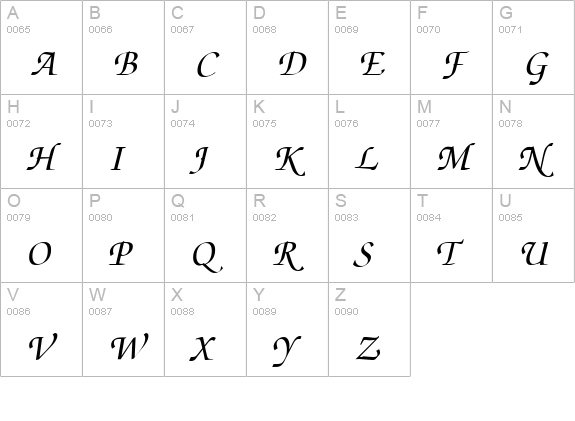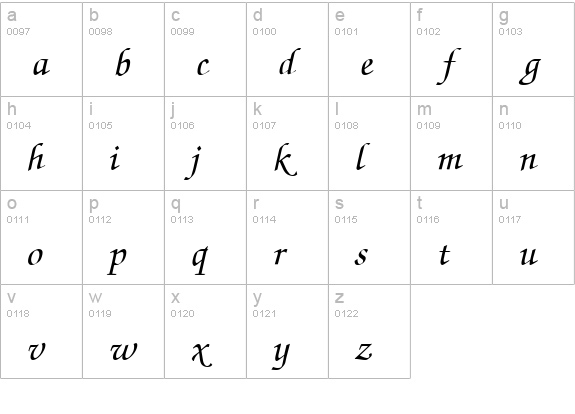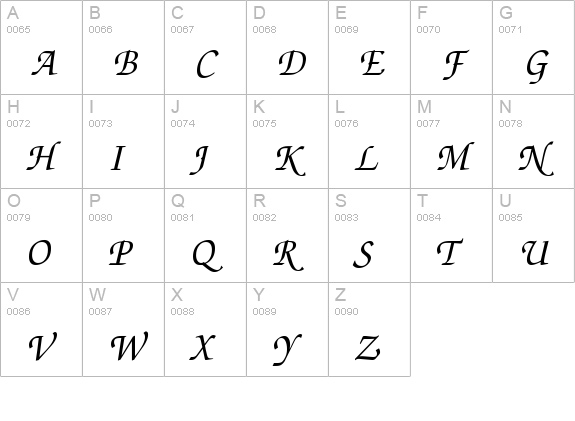
Invitation Regular Font Details
Invitation Regular is the standard, neutral variant in the Invitation typeface family \xE2\x80\x94 well suited to general body text, paragraphs, and standard typographic work.
Invitation Regular font is a beautifully designed typeface that exudes elegance and sophistication. Its refined curves and delicate strokes make it perfect for formal occasions such as invitations, wedding cards, and event announcements. The font's classic yet contemporary style captures attention and adds a touch of sophistication to any project. What makes Invitation Regular font even more appealing is that it is freely available to download at FontsMarket.com. This means that you can easily access this stunning font without any cost or restrictions. Whether you are a professional designer or someone looking to add a touch of elegance to a personal project, Invitation Regular font is a fantastic choice. With its versatile nature, Invitation Regular font can be used across various mediums, including print and digital designs. Its legibility and clarity ensure that your message is conveyed effectively, while its timeless aesthetic adds a touch of charm to your content. Whether you are creating invitations for a high-end gala, designing a sophisticated logo, or crafting a visually stunning website, Invitation Regular font is a versatile and stylish option that will elevate your design to the next level. Its exquisite details and refined appearance are sure to impress and captivate your audience. Download Invitation Regular font now for free at FontsMarket.com and discover the endless possibilities it offers for your creative projects. With this font, you can effortlessly convey elegance and sophistication, making your designs stand out from the crowd. So go ahead, unleash your creativity and let Invitation Regular font take your designs to new heights.